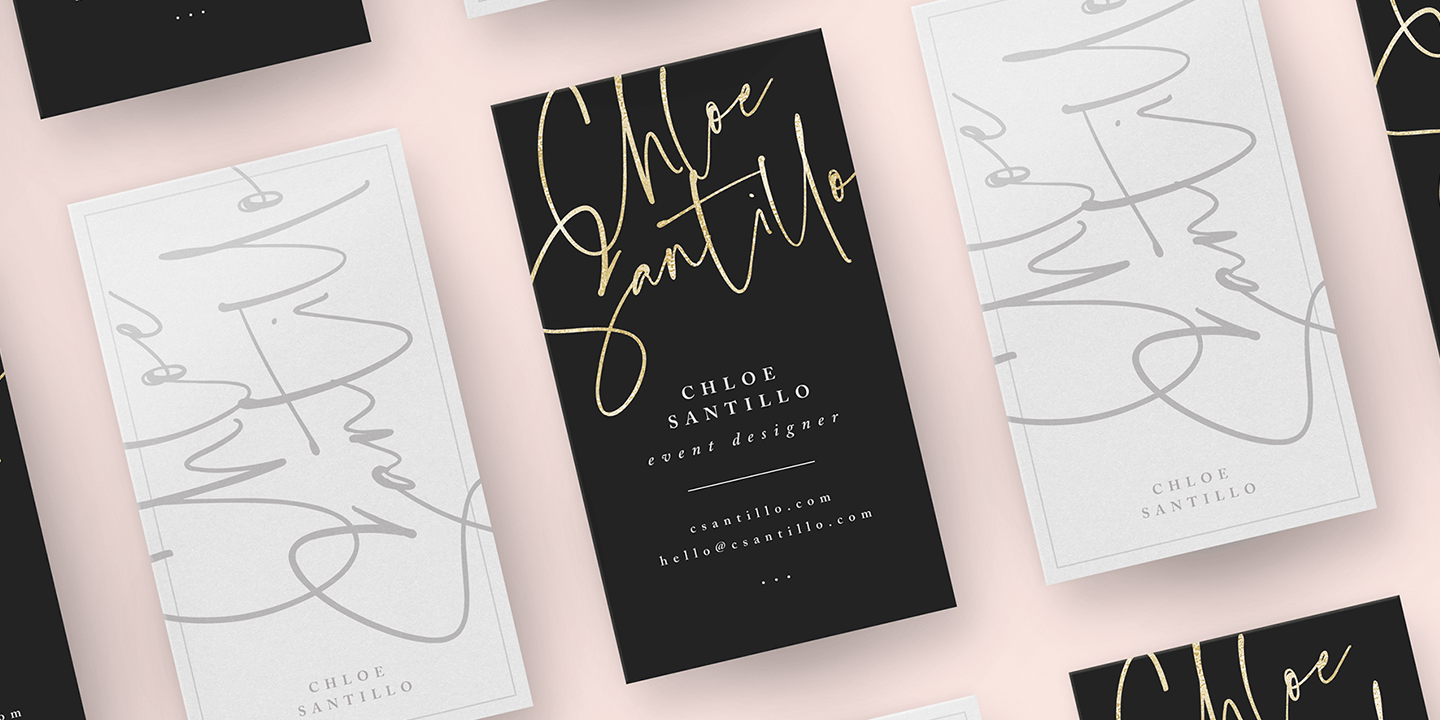
Bird And Thorn Font
Bird And Thorn Font - Web bird and thorn is a vivacious & expressive script font with a stylish quality. This is achieved by the.
This is achieved by the. Web bird and thorn is a vivacious & expressive script font with a stylish quality.
Web bird and thorn is a vivacious & expressive script font with a stylish quality. This is achieved by the.
Bird & Thorn is completely handdrawn and designed to perfectly re
Web bird and thorn is a vivacious & expressive script font with a stylish quality. This is achieved by the.
This is achieved by the. Web bird and thorn is a vivacious & expressive script font with a stylish quality.
Introducing Bird & Thorn; A freeflowing, expressive script font with a
Web bird and thorn is a vivacious & expressive script font with a stylish quality. This is achieved by the.
Bird And Thorn Introducing Bird & Thorn; A freeflowing, expressive
Web bird and thorn is a vivacious & expressive script font with a stylish quality. This is achieved by the.
This is achieved by the. Web bird and thorn is a vivacious & expressive script font with a stylish quality.
Web bird and thorn is a vivacious & expressive script font with a stylish quality. This is achieved by the.
This is achieved by the. Web bird and thorn is a vivacious & expressive script font with a stylish quality.
This Is Achieved By The.
Web bird and thorn is a vivacious & expressive script font with a stylish quality.